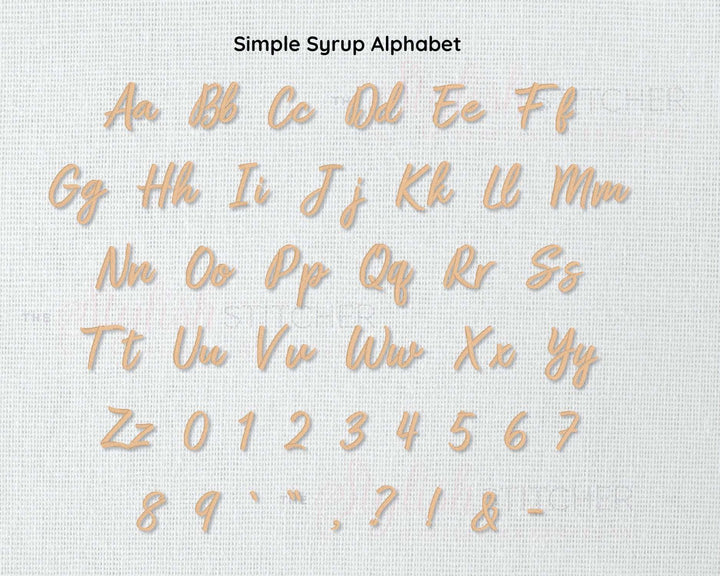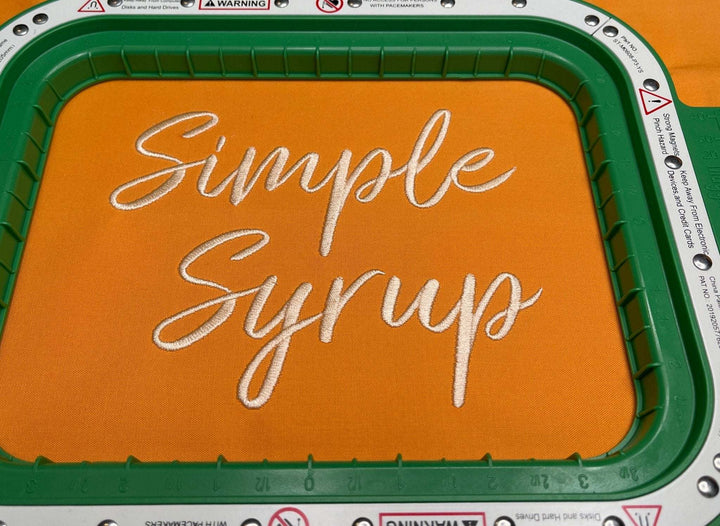
Photograph of Simple Syrup embroidery font alphabet
Photograph of stitched out Simple Syrup embroidery font
Simple Syrup Digital Embroidery Font
Simple Syrup is a smooth, cursive embroidery font that provides a clear and professional finish to your projects. Hand digitized for high-quality results, it is well-suited for customizing a range of items. With clean lines and a modern twist on classic cursive, it's as delightful to look at as it is to stitch.